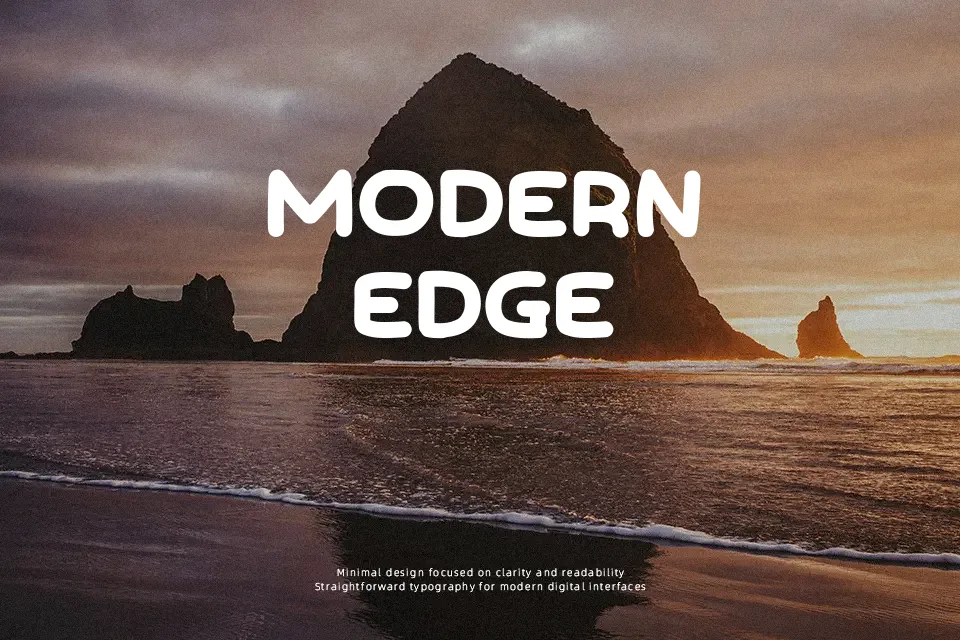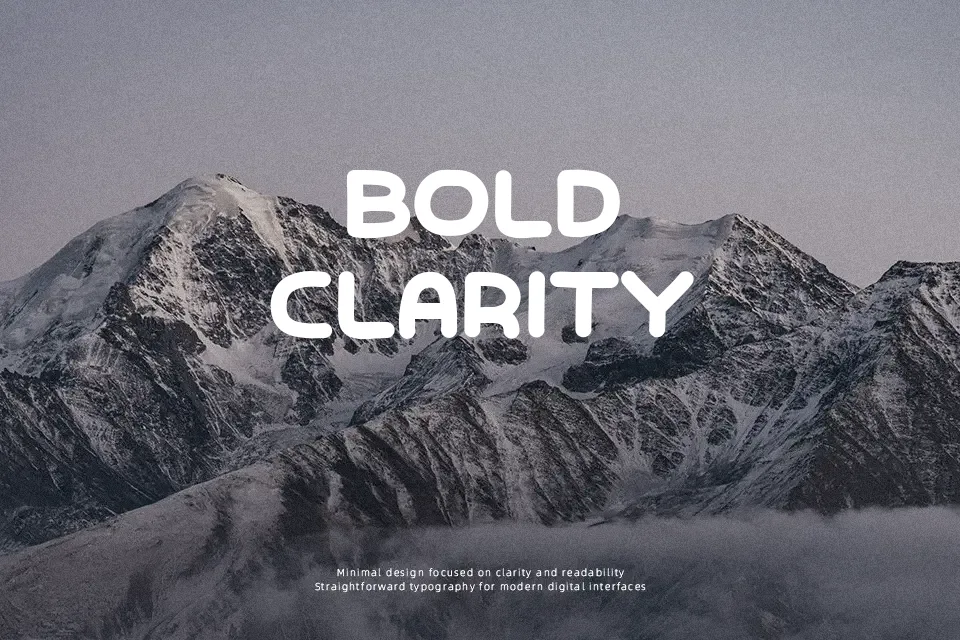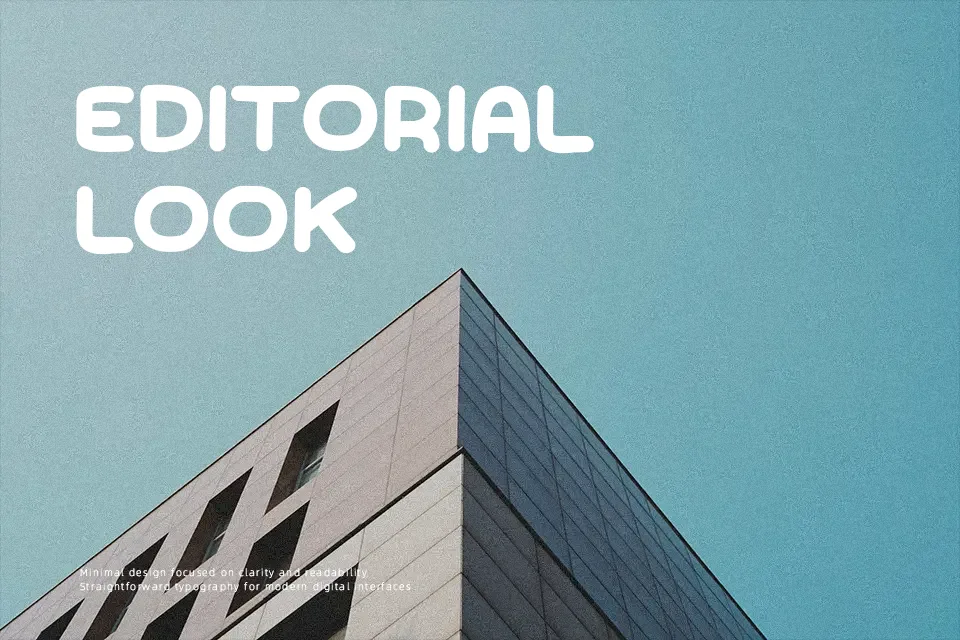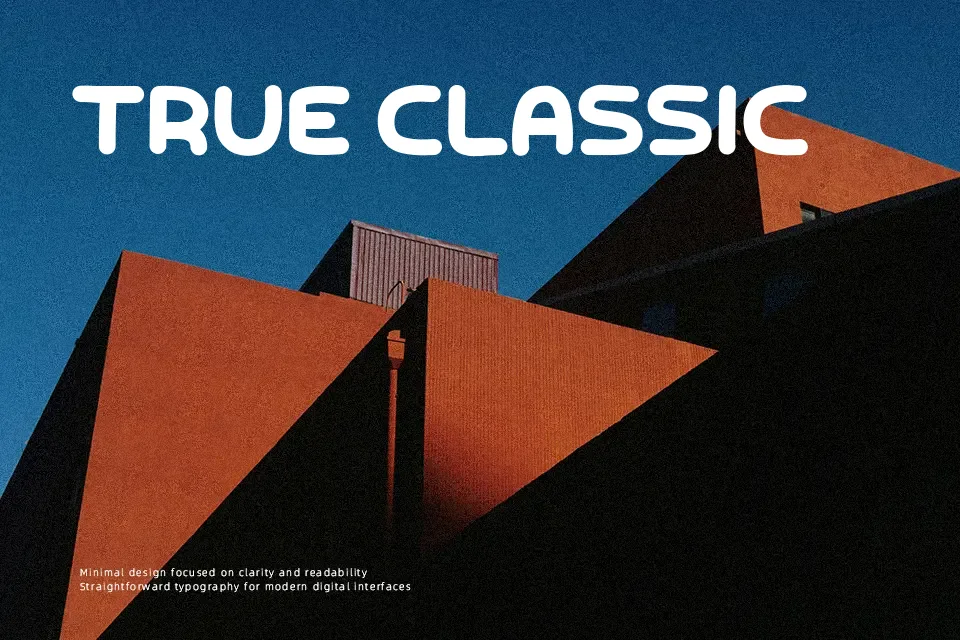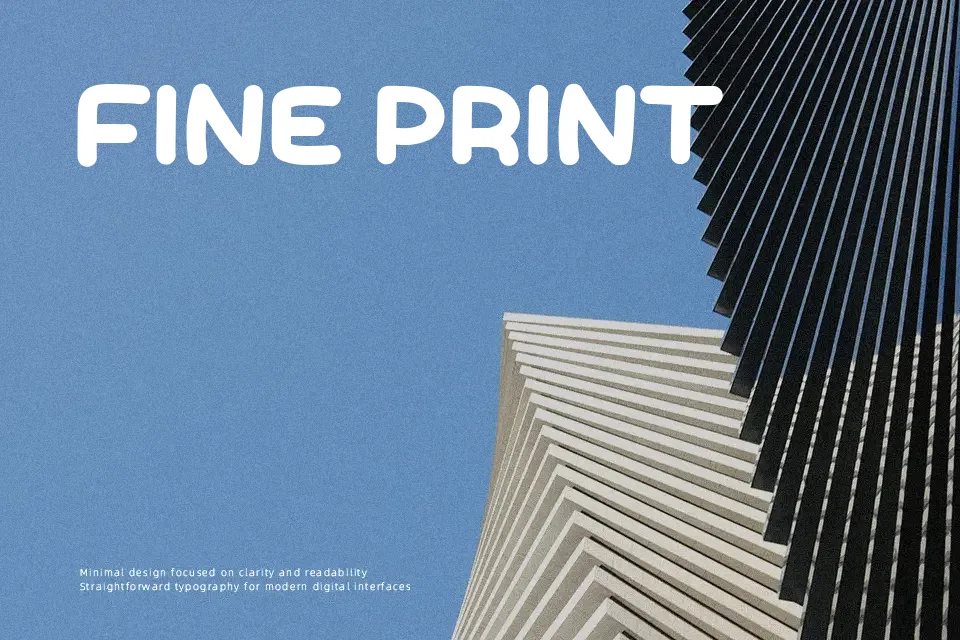
Nepoboy Font
Characters in this font use bold, rounded strokes with consistent weight, creating chunky cartoon shapes that feel soft rather than aggressive. Spacing sits on the tighter side, so words form dense, cohesive blocks that suit short phrases and headings more than extended reading. The overall structure is wide and bouncy, with smooth curves and minimal sharp corners, which supports quick recognition at display sizes. At smaller text sizes, the heavy strokes and compact spacing can reduce clarity, especially in longer lines. It performs best in eye-catching titles, logos, and banner text where its playful personality can stand out without sacrificing legibility.
kids’ book or comic titles,
casual game logos and splash screens,
playful poster headlines,
social media graphics for youth-focused content
long paragraph text,
formal corporate reports,
dense UI labels or data tables,
small legal or technical documents
Perfect for gaming, headline, and logo, with a bold and cartoon style.